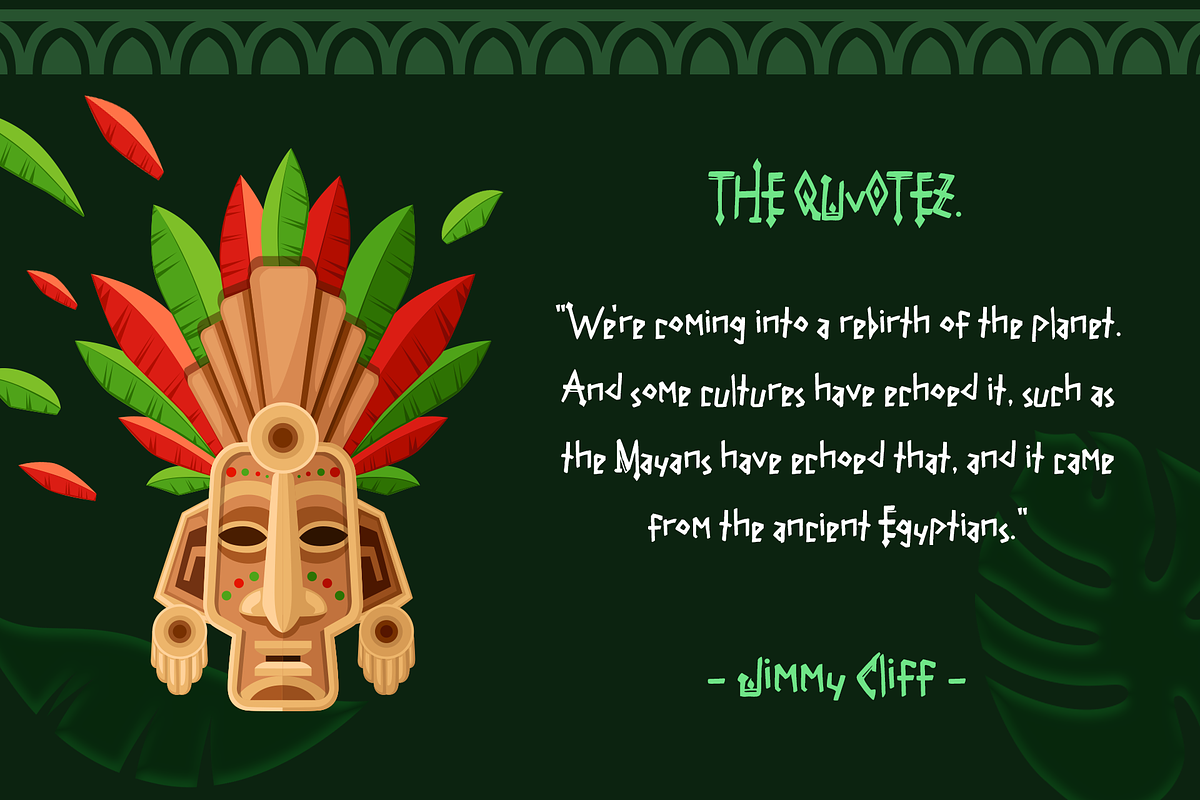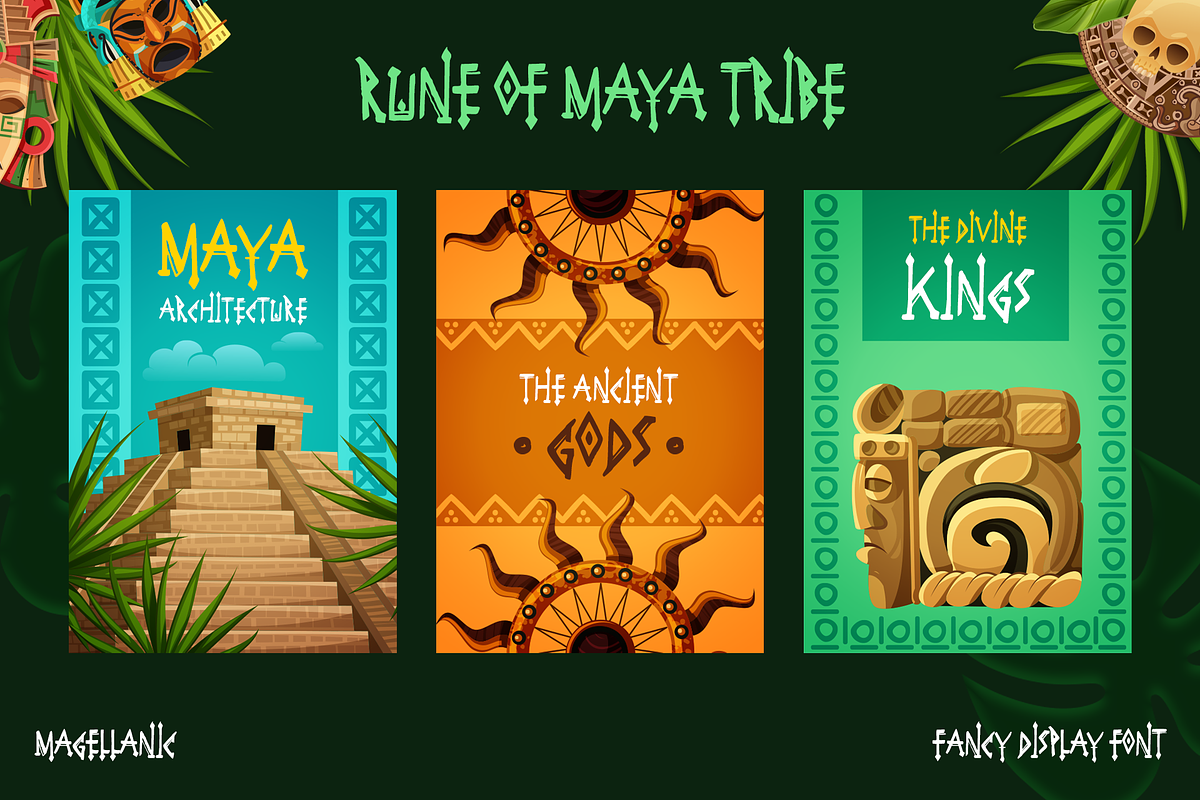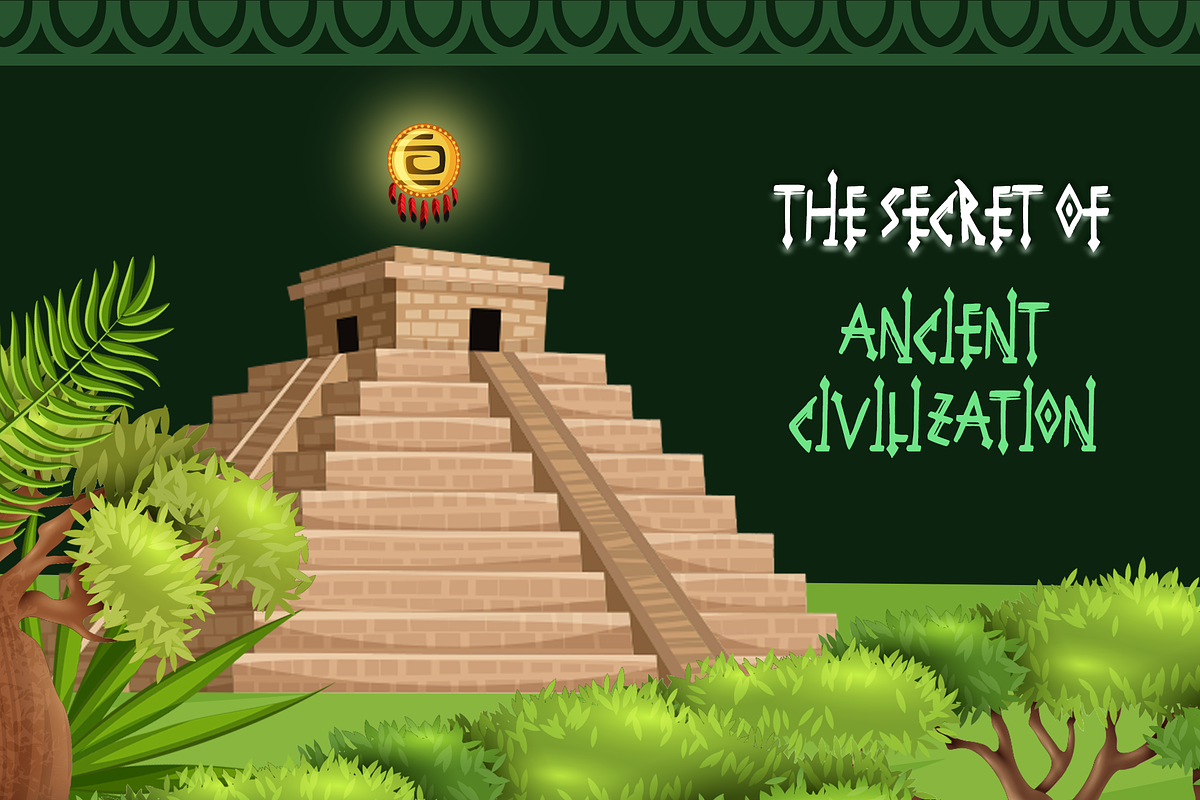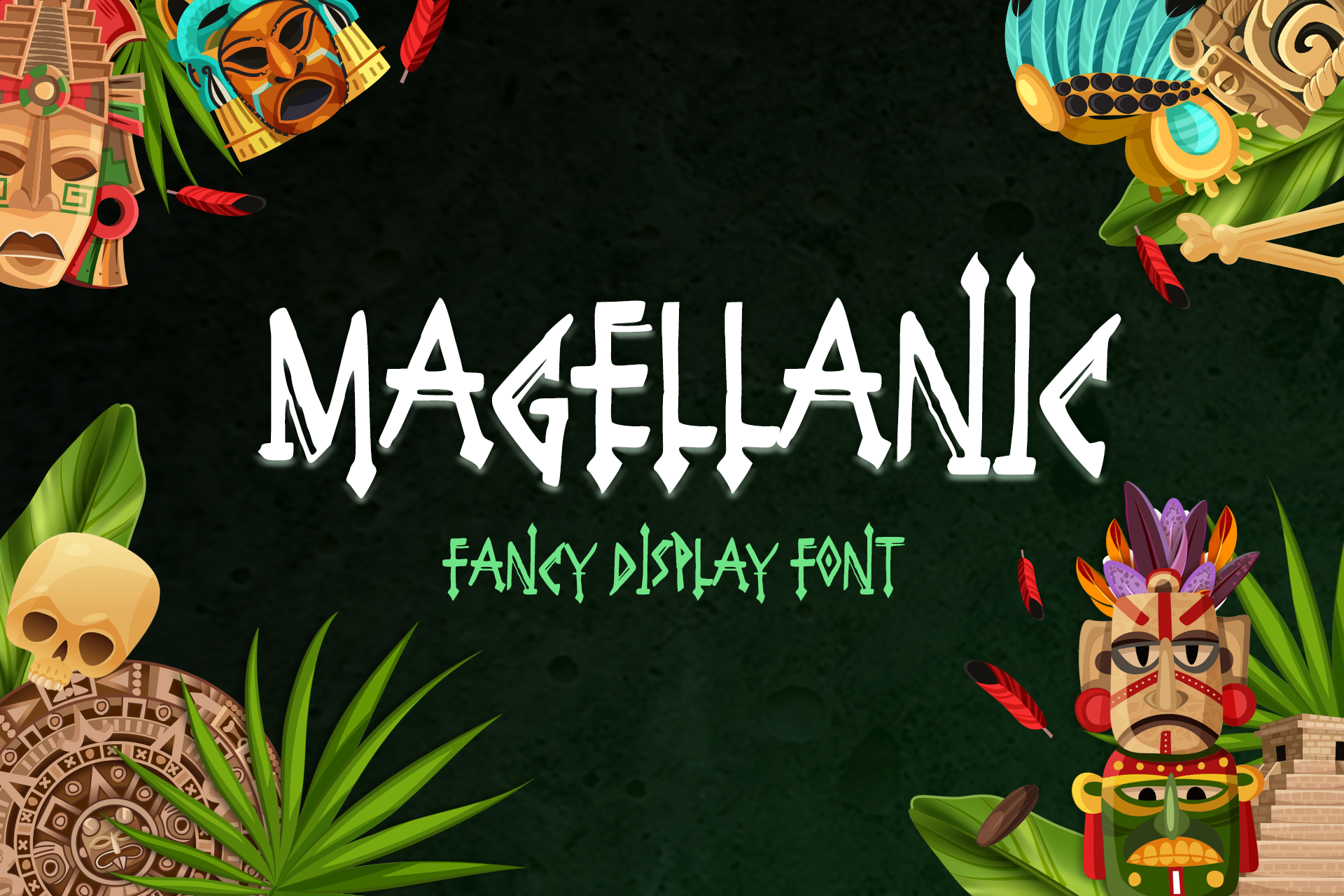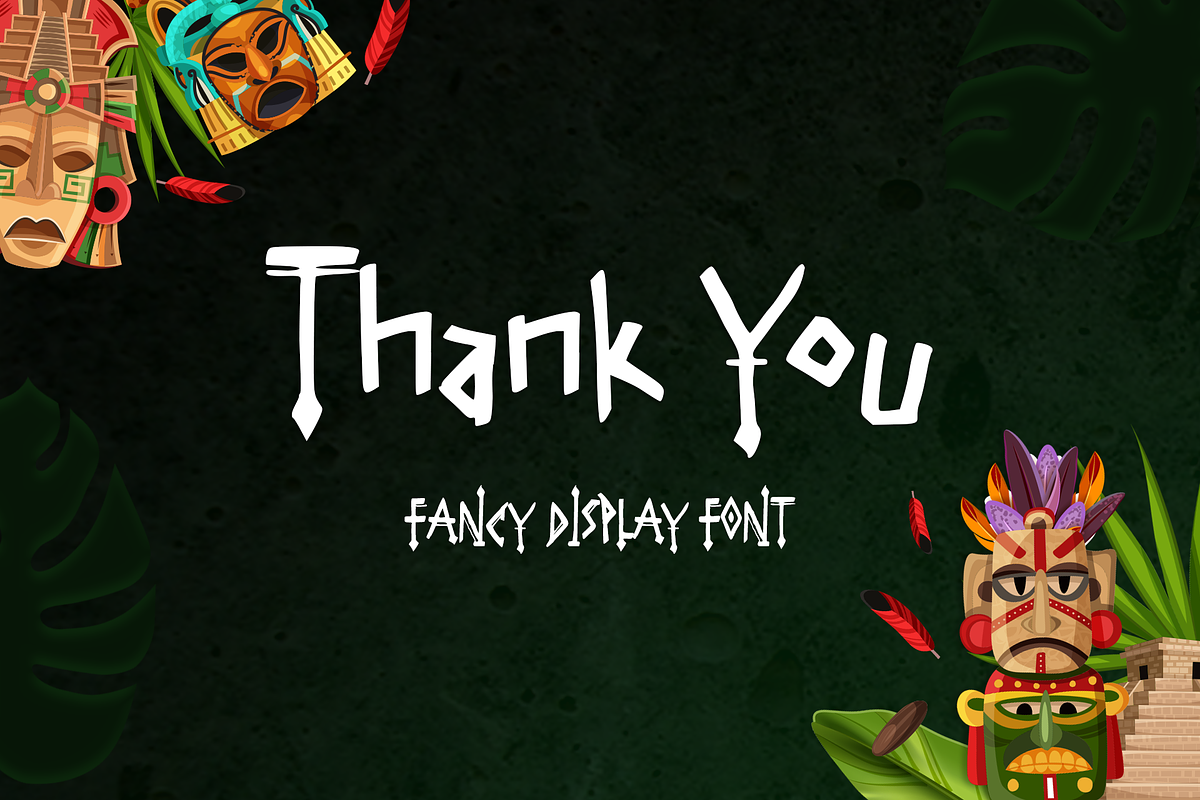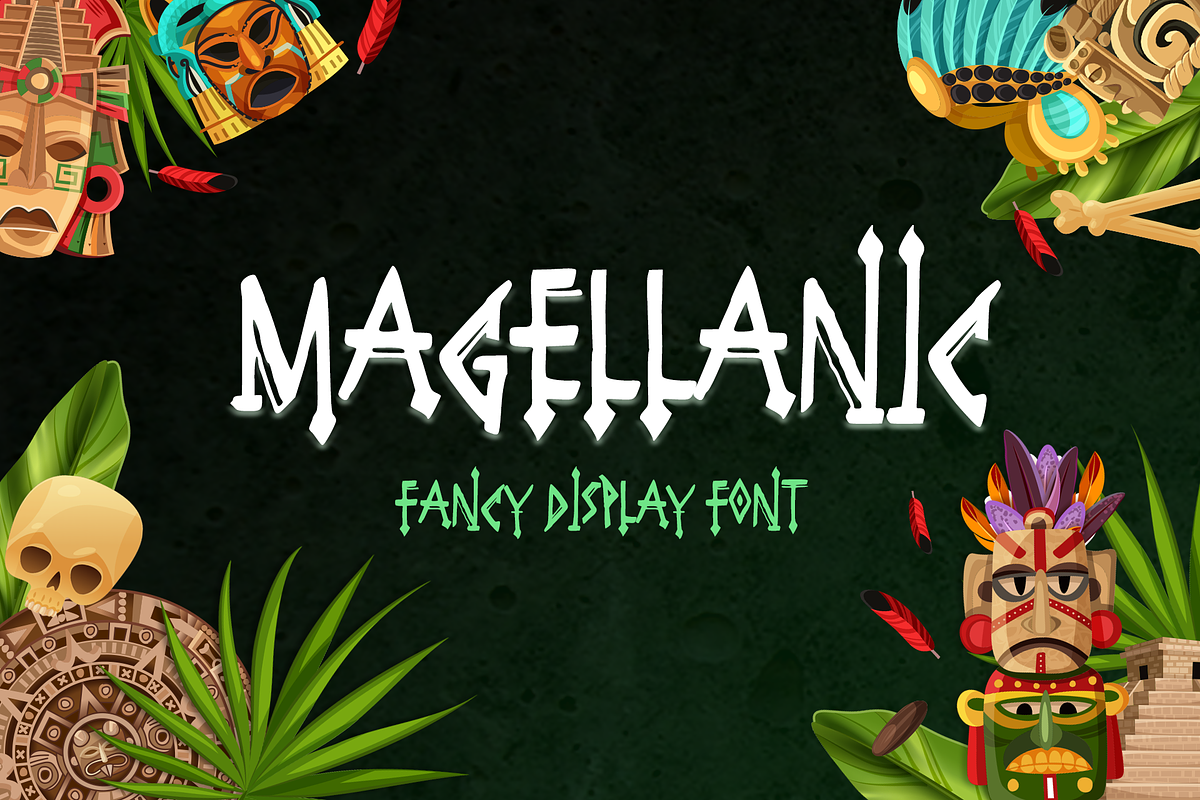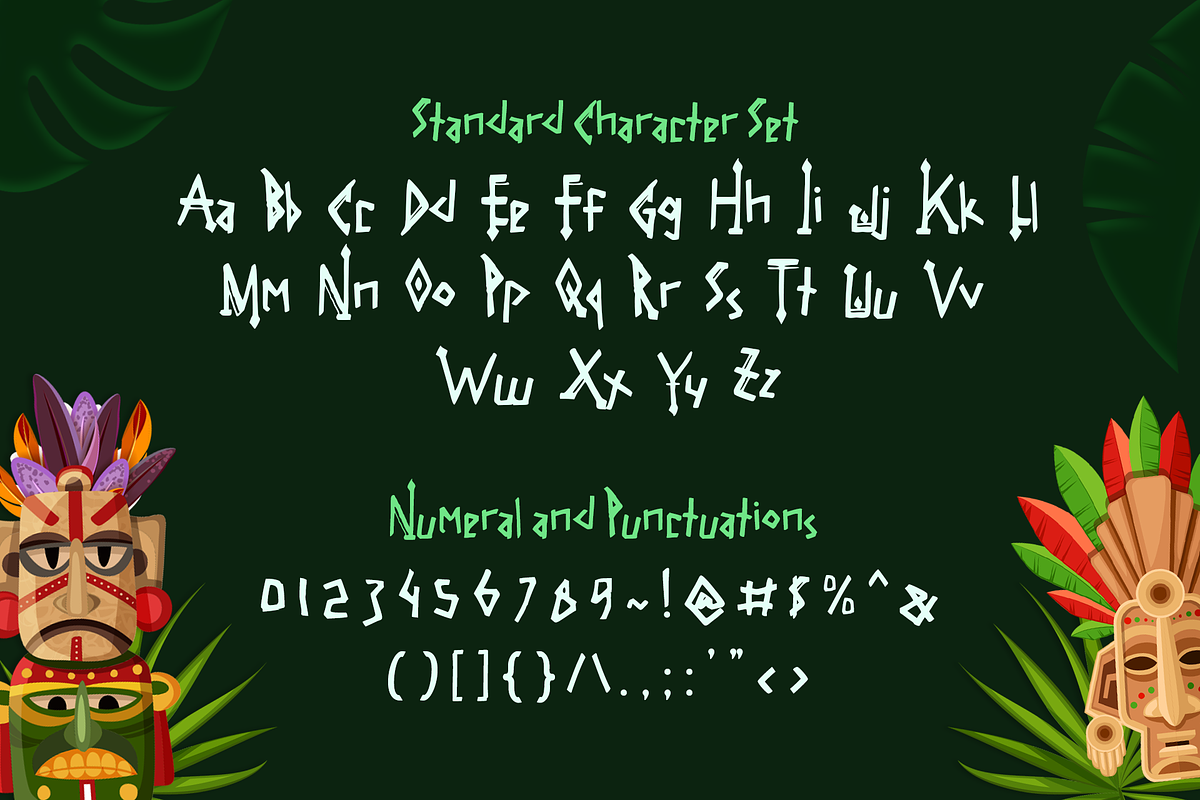
Magellanic Display Font
Magellanic Display Font, is our new font and suitable for mockup or any work.
Great for Sticker, Invitation Card, Brochure, etc.